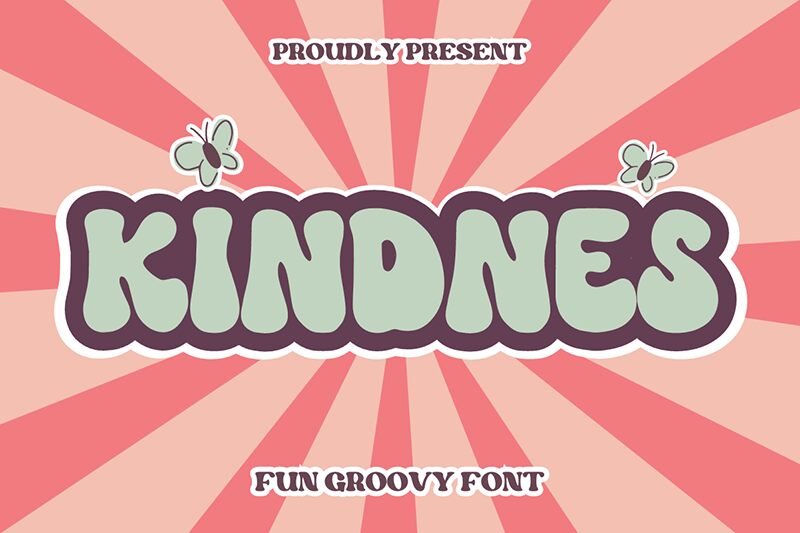
Kindnes font by Tri Sakti Oktaviano is a groovy display font imbued with the spirit of 1970s hippie culture. Its bold appearance is softened by rounded edges, making it approachable, friendly, and warm. Each letterform evokes a sense of retro nostalgia while maintaining contemporary relevance, effortlessly blending past inspirations with present-day needs.
This free display font shines in branding for children’s products or casual social media graphics. Kindnes can bring life to posters, flyers, or book cover designs. Consider it for event invitations, restaurant menus, packaging designs, product labels, merchandise prints, greeting cards ideas and even wall art displays!